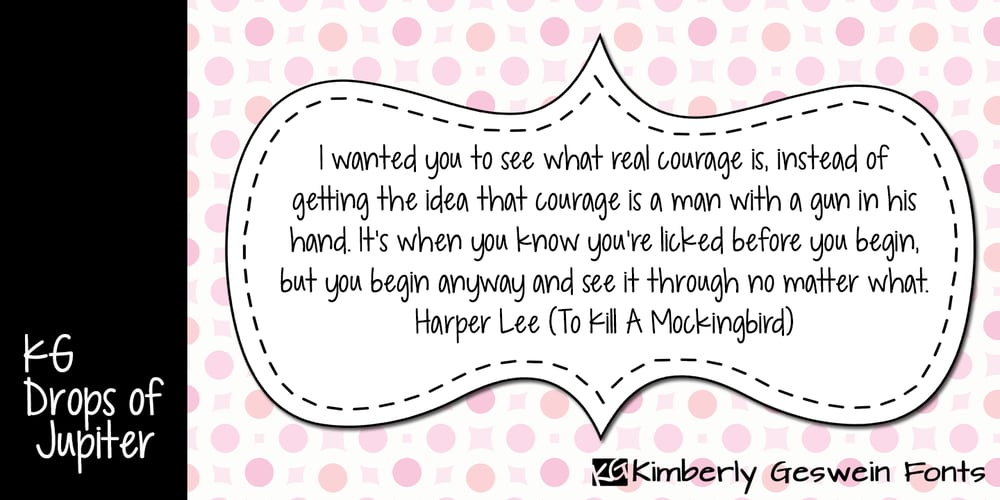
KG Drops Of Jupiter
KG Drops Of Jupiter font
KG Drops Of Jupiter Font Family was designed by Kimberly Geswein and published by Kimberly Geswein. KG Drops Of Jupiter contains 1 styles and family package options. Pretty handwriting in an upright, classic feminine style. Nice and neat.